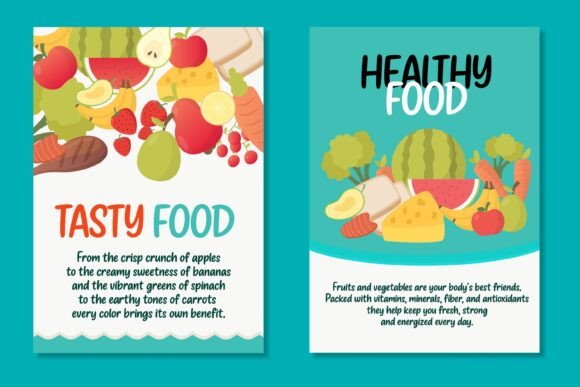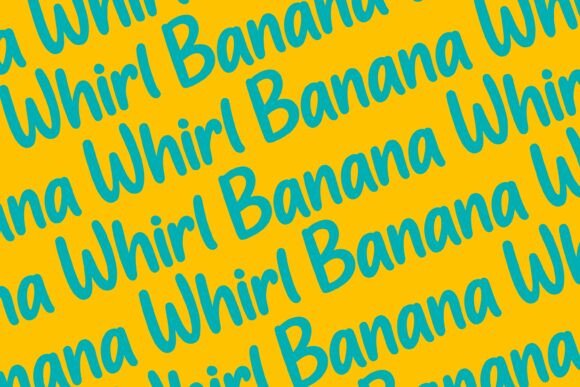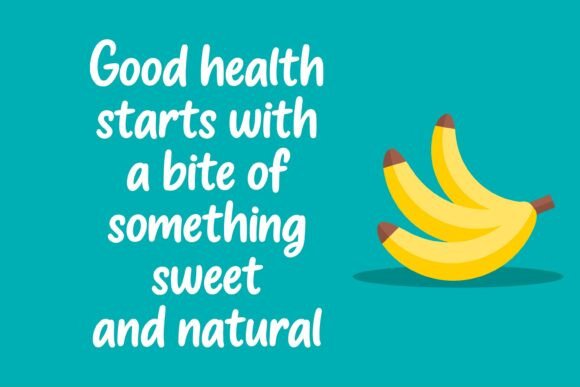
Banana Whirl – A Fun & Chunky Display Font Say hello to Banana Whirl, a bold and bouncy display font that’s full of flavor.
With its round curves and retro vibes, Banana Whirl brings a playful twist to any project Inspired by the sweetness of banana snacks and the joy of childhood doodles, this font is perfect for packaging, social media posts, kids’ merchandise, cheerful branding, and anything that needs a little fun on top.
Banana Whirl Font offers exceptional quality and versatility, making it a valuable addition to your design toolkit. Whether you’re creating for personal projects or commercial use, Banana Whirl Font delivers professional results.